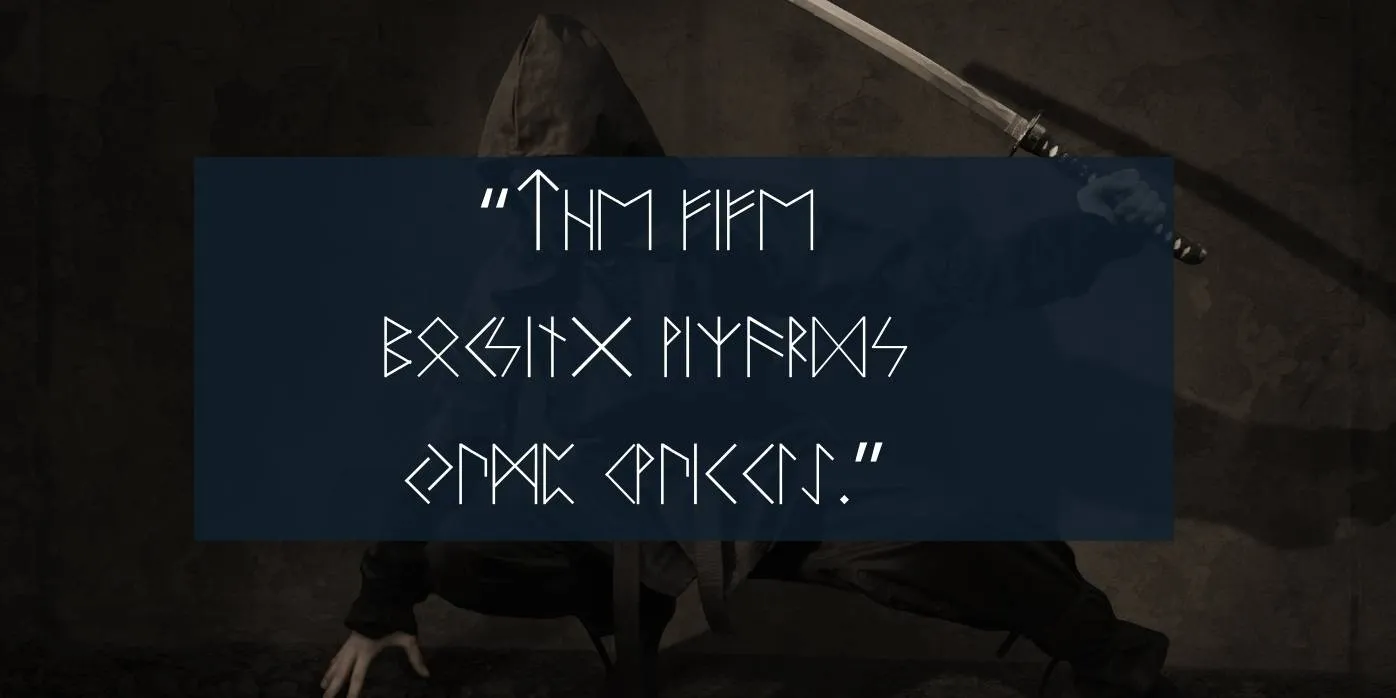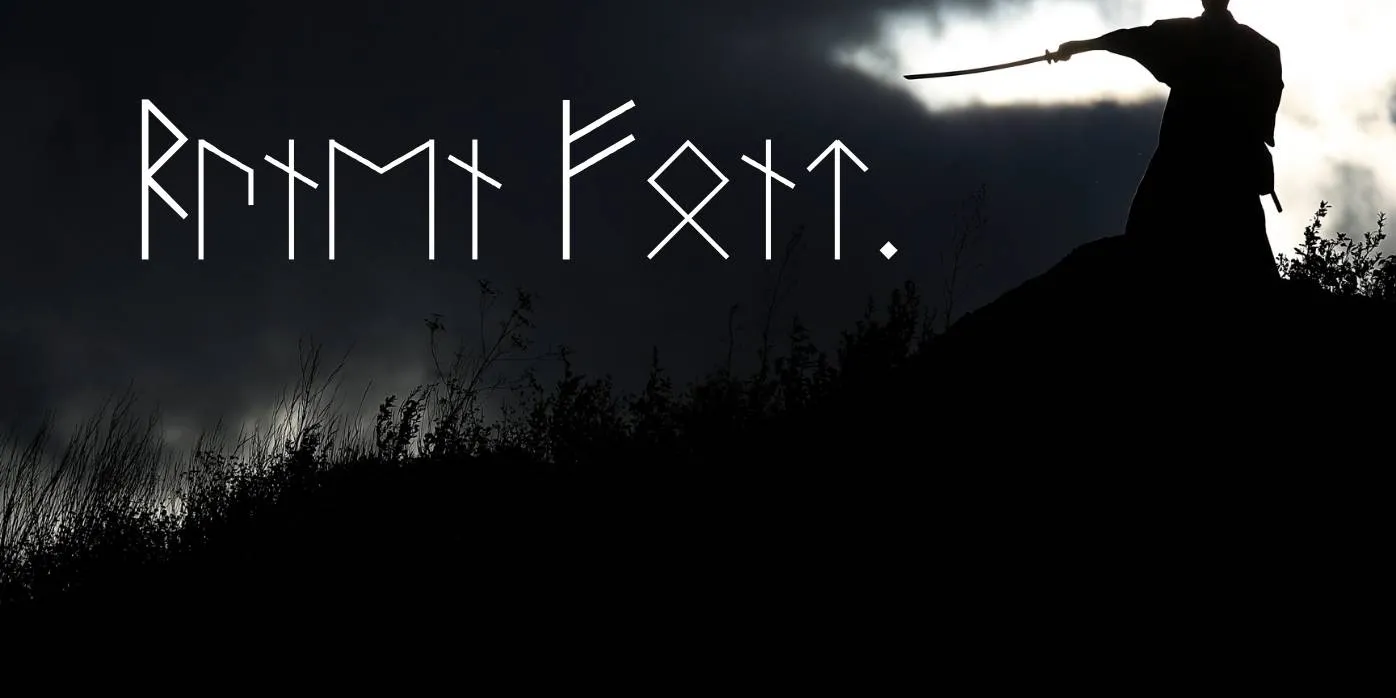
Runen Font
Runen Font was designed by runentype runemasters. Runentype runemasters is a runic font foundry run by 2 designers, Steffen Kverneland and Peter Bruhn Andersen. It started in 2010 when they began designing various runic fonts. The Runen font is all caps, which makes it perfect to read and as engaging as lowercase letters.
It has a variety of weights from light to bold and contains many ligatures for good text flow. All of these weights make it popular. This amazing font is very famous for runic tattoos. Paulistana Deco Font is the most similar font to this classy typeface.
This awesome Font has keen and clean features with a runic design. This classy font has various types of runic letters. It is applicable to runic tattoos, runic greeting cards, runic t-shirts, and more. Those who are interested in runic scripts will be fascinated with the runen font because it contains the essence of artistic features that are very effective.